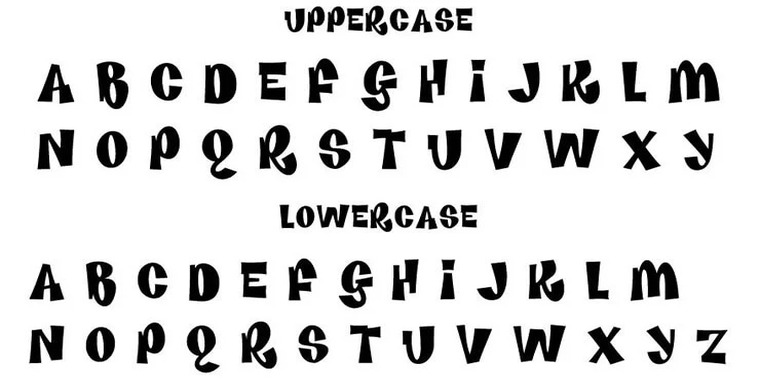
Bratz is a brand of trendy dolls made by Carter Bryant and sold by MGA Entertainment. The dolls are made for girls who are between the ages of 9 and 19.
The Bratz font was originally made by hand, but now there is a copy available called Kenan & Kel. This font was made by Jayde Garrow.